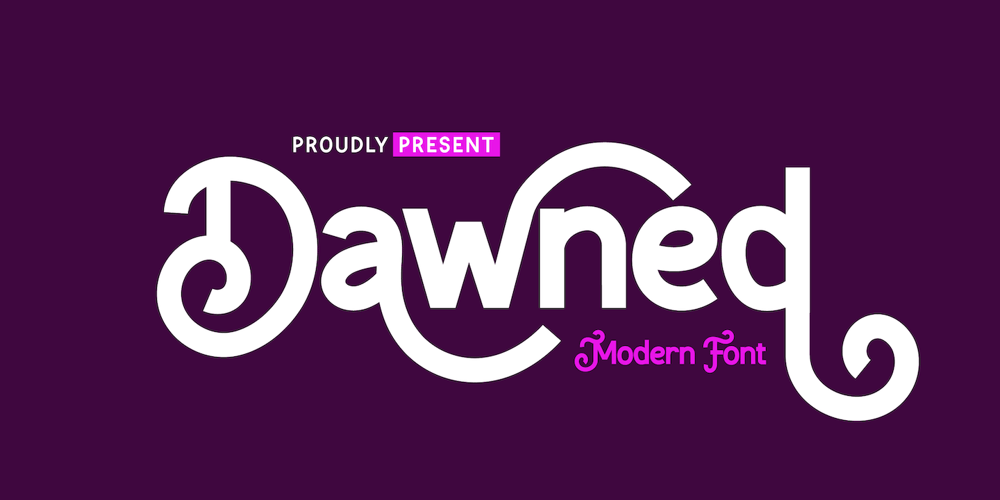
Dawned
Dawned font
Dawned Font Family was designed by Rozikan and published by Twinletter. Dawned contains 2 styles and family package options. Dawned is our san serif font created with a sweet and enchanting imagination which we applied to this font design. every arch we make is dramatic and dazzling. start using this font to get the perfect work in your project.Not limited to that, the bold calligraphy font is designed to keep paying attention to the beauty of each letter, there are alternate options for the letters which are certainly easy for you to access, so you can automatically customize the letters you want to enhance the visual appearance of your design project.This charming font also offers the beauty of abstract typography harmony for a wide variety of design projects, including digital natural handwriting for designs, quote designs, for social media business designs, advertisements, trademarks, food and beverage promotion banners, text, posters, a signature, and all designs require handwriting or whatever design you want.============================================================================================================What’s Included : Standard glyphs Ligature Works on PC & Mac Simple installations Accessible in Adobe Illustrator, Adobe Photoshop, Adobe InDesign, even work on Microsoft Word. PUA Encoded Characters – Fully accessible without additional design software. Fonts include multilingual support for; Afrikaans, Albanian, Croatian, Czech, Danish, Dutch, English, Estonian, Finnish, French, German, Hungarian, Italian, Norwegian, Polish, Portuguese, Slovak, Slovenian, Spanish, Swedish Thank you for your purchase!Hope you enjoy our font!